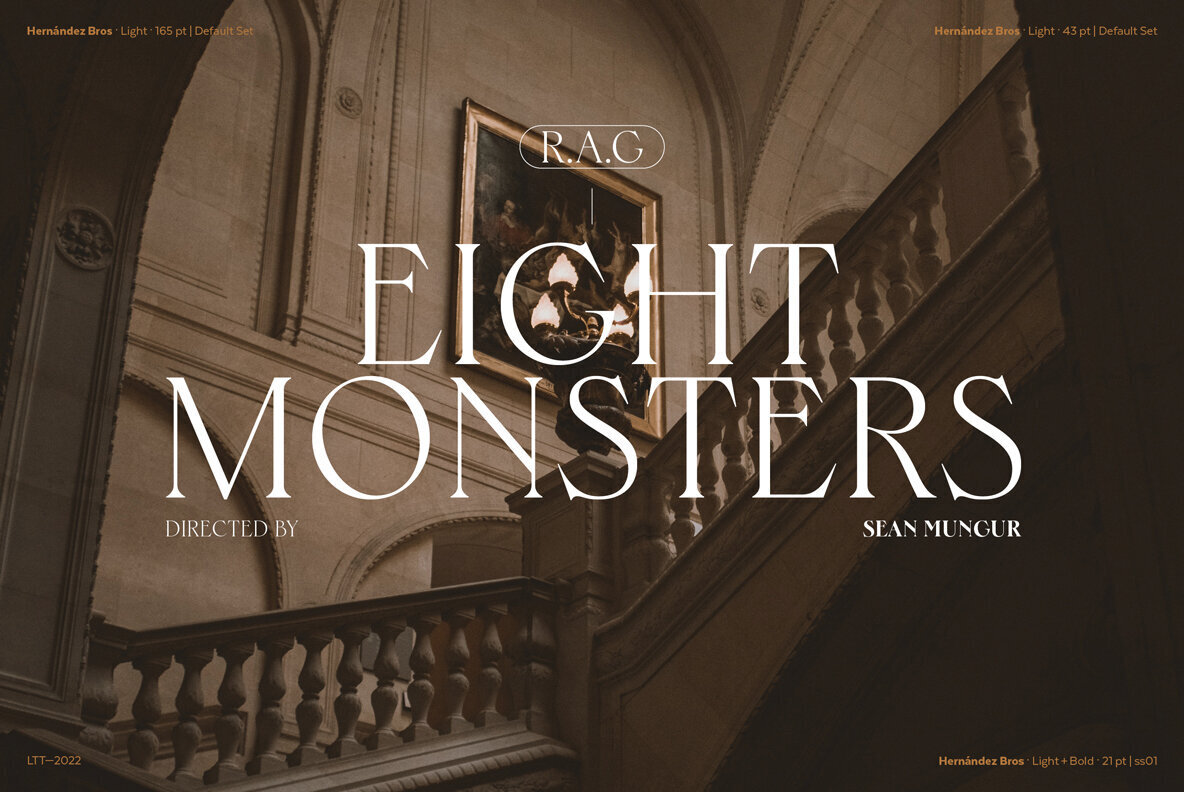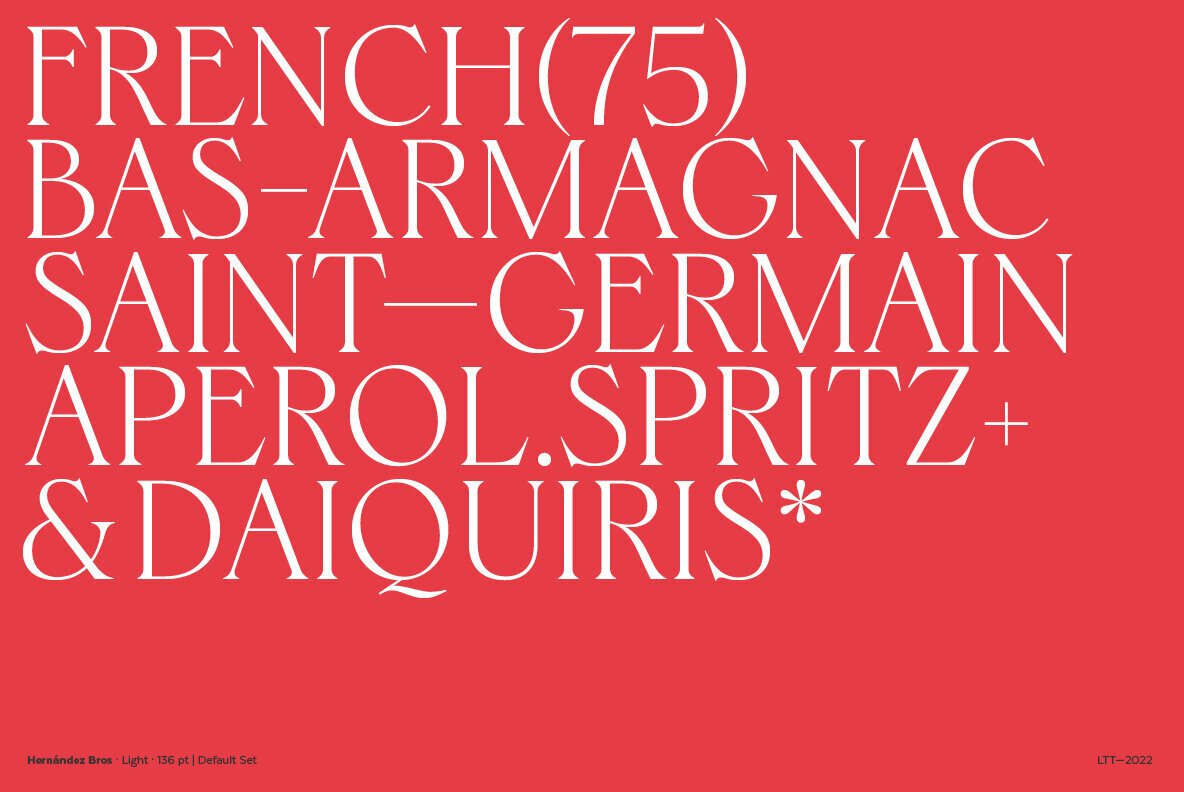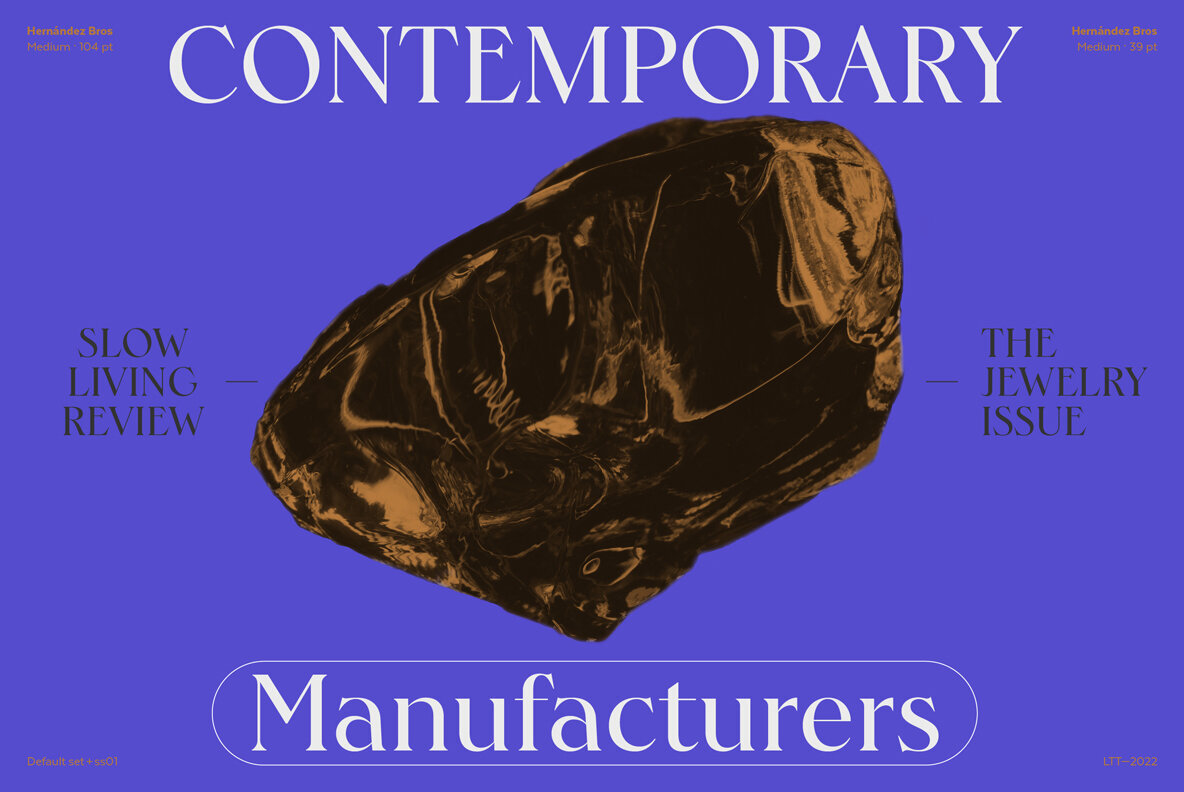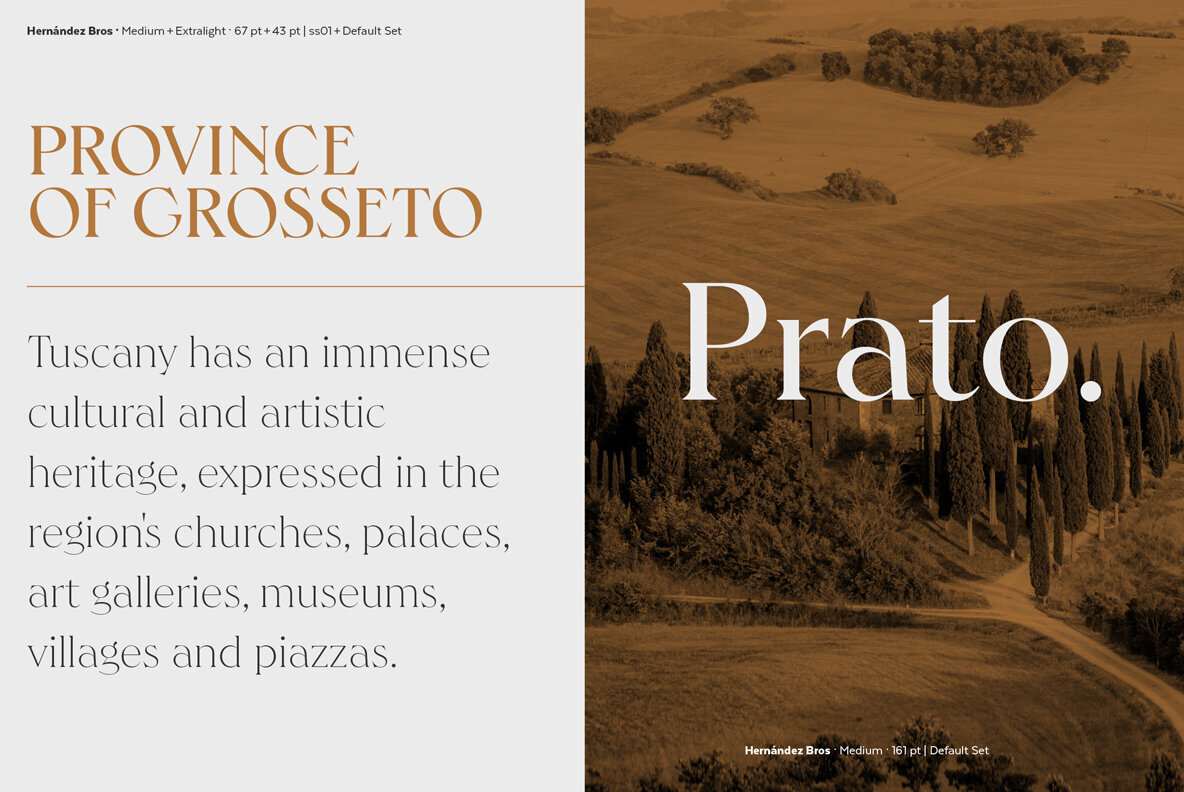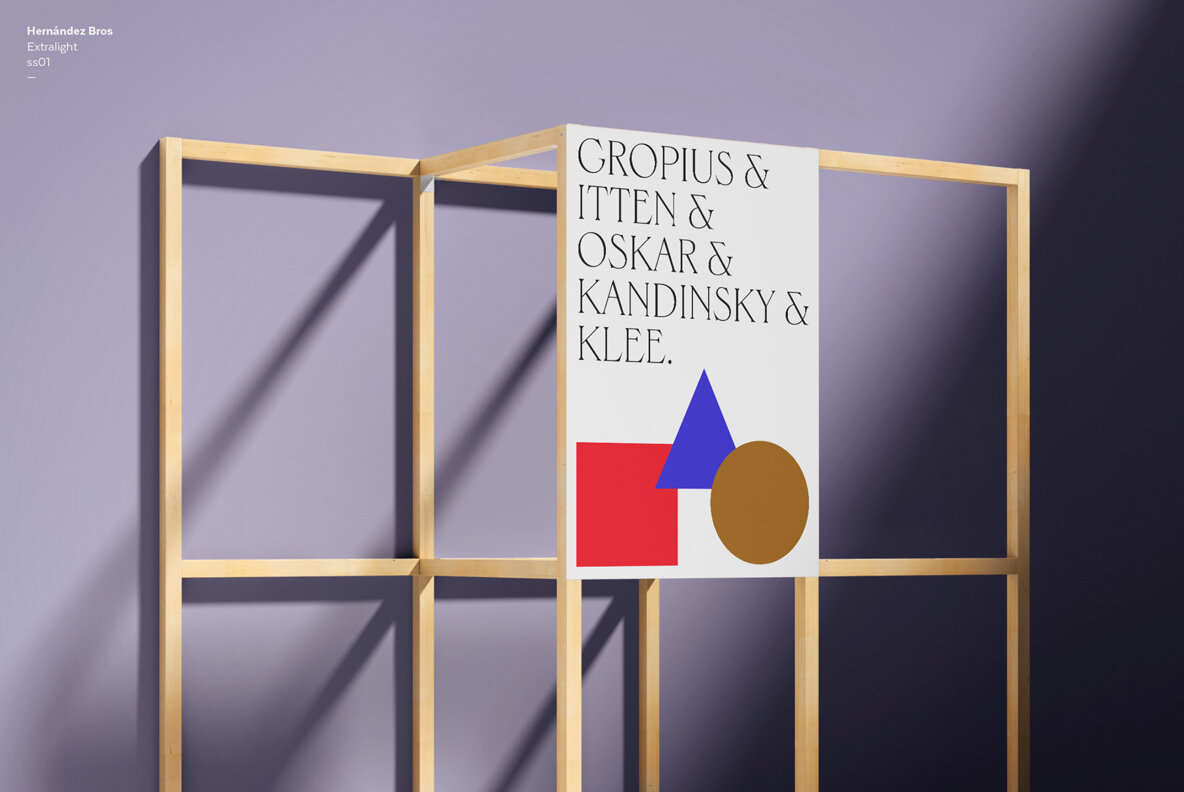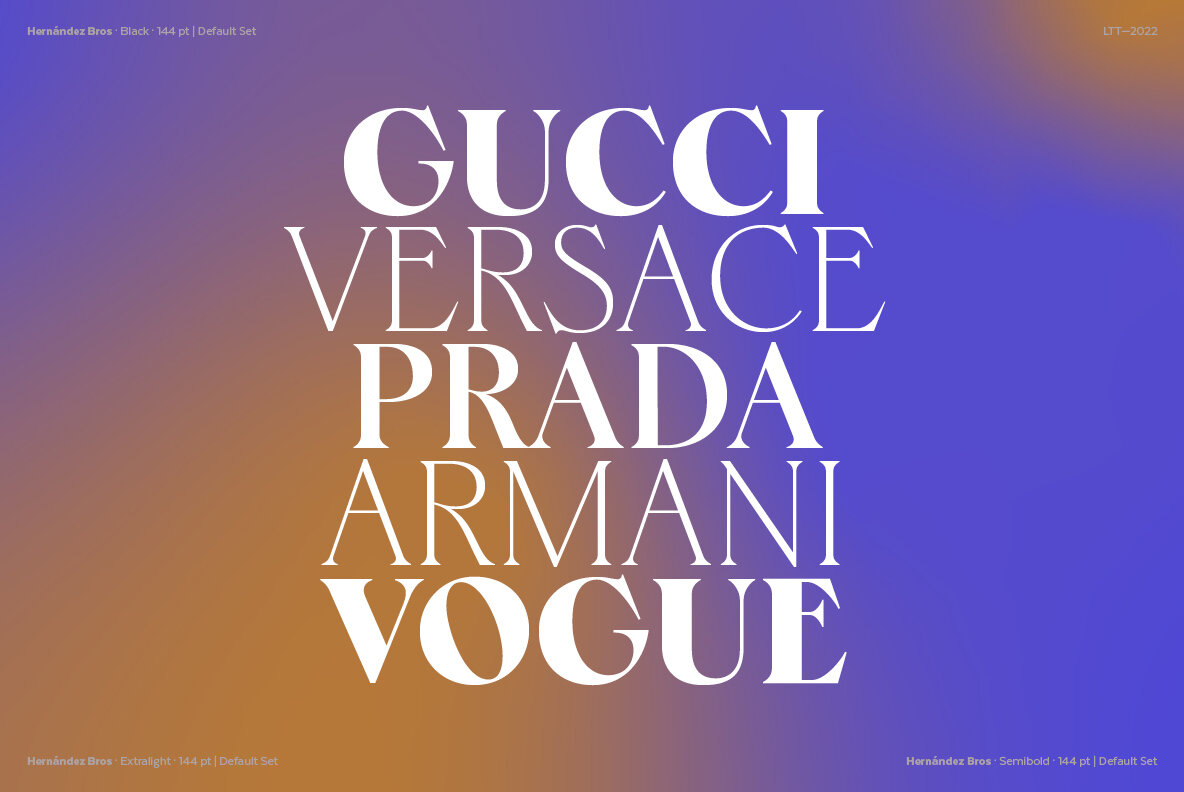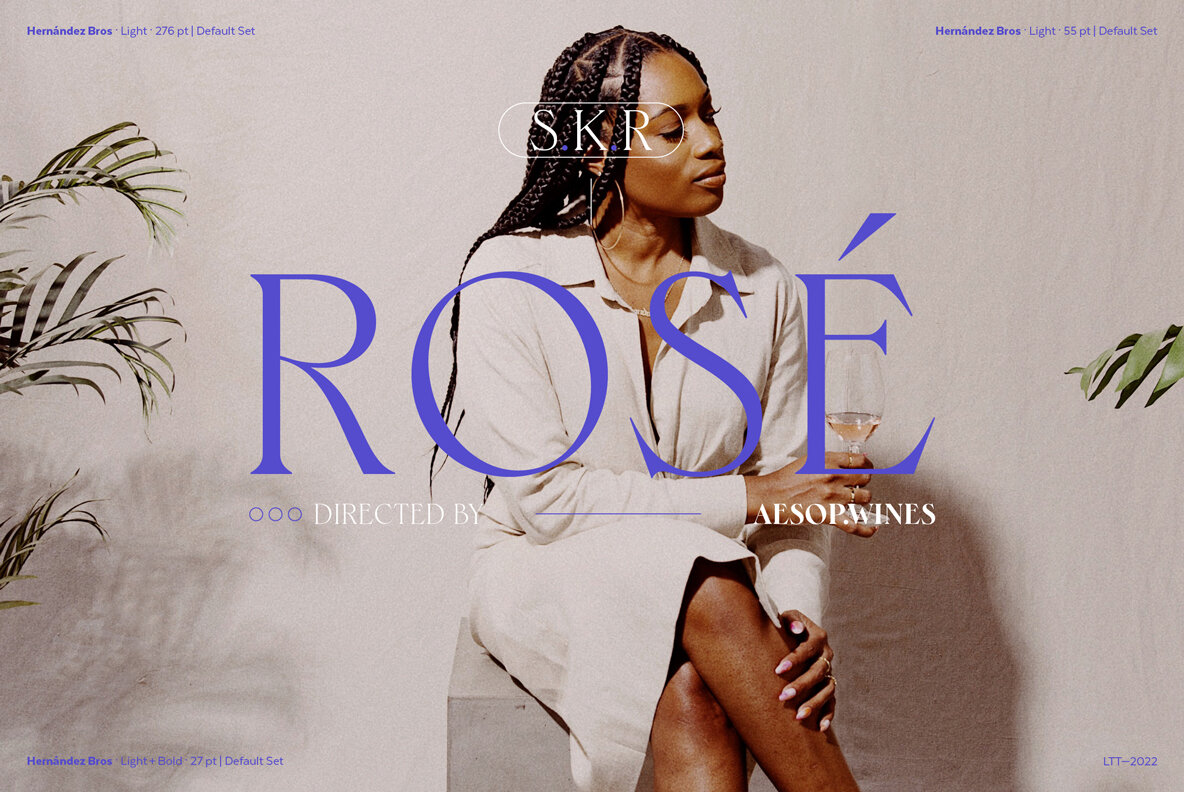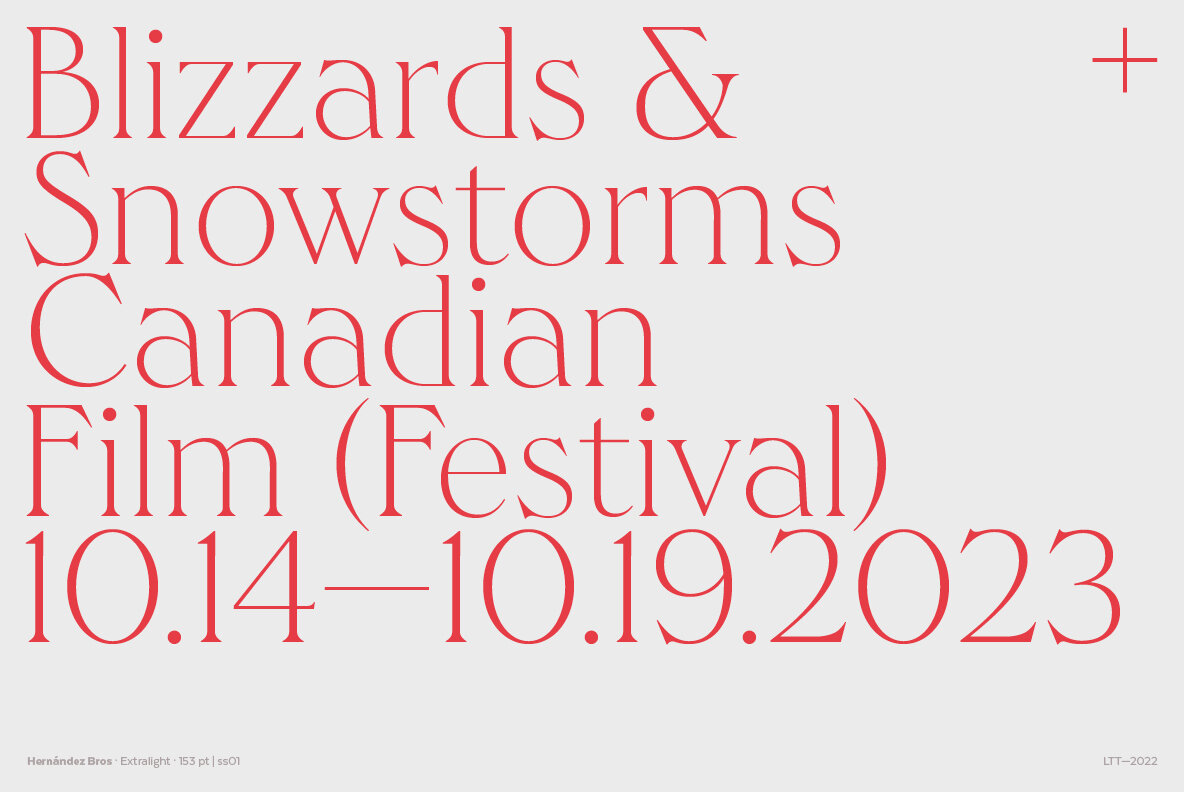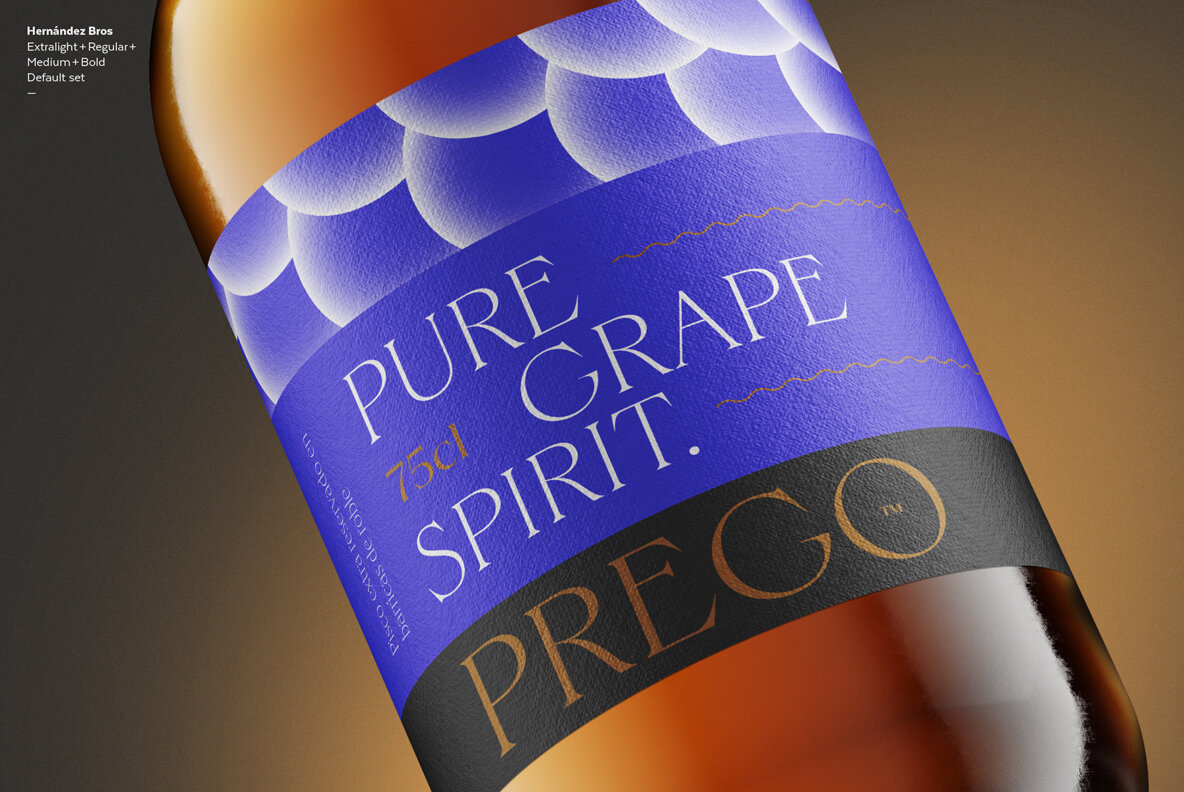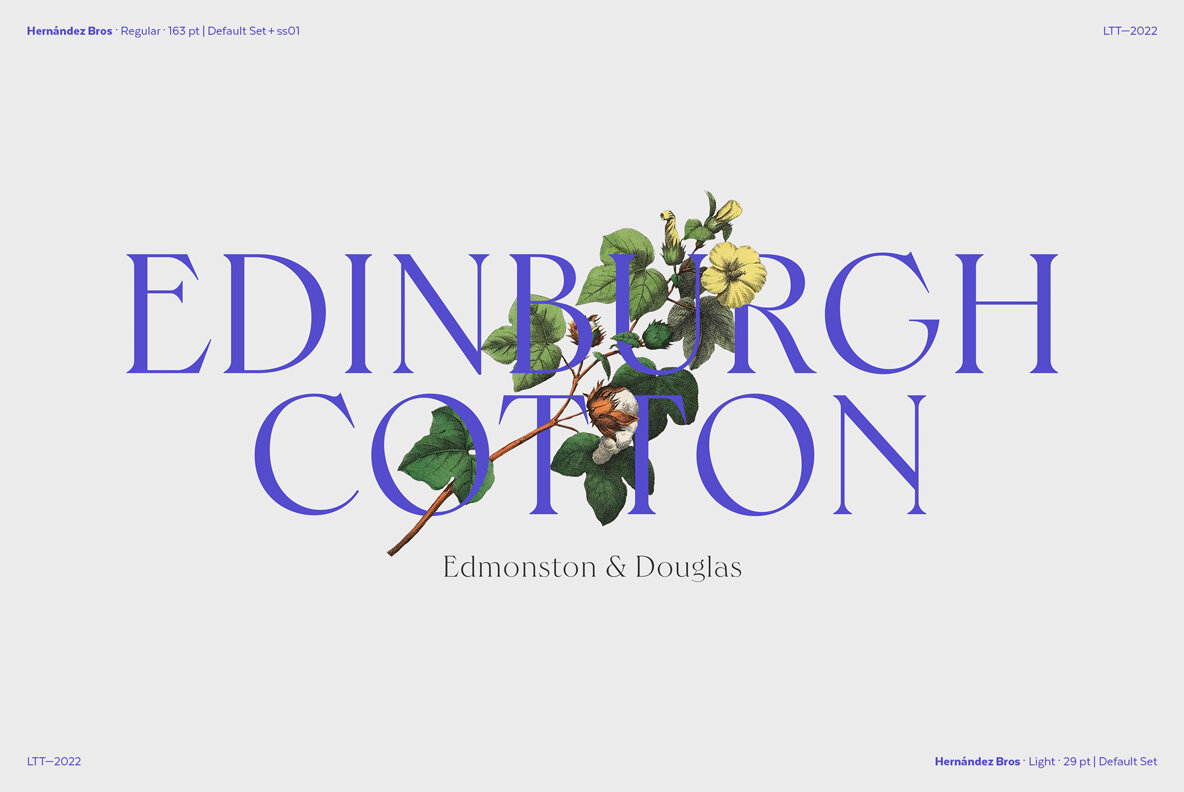
Hernandez Bros Font
Hernández Bros, is a typeface designed by Daniel and Eli Hernández. Born in the year 2021, in the midst of the Covid pandemic, from a collaborative spirit where everything called them to work together as family, in order to obtain better results in such trying times.
The Hernández siblings, started a ping pong of drawings based on Bulfinch found in the 1912 ATF catalogue. From this exercise, Hernández Bros was designed, a modern Sans Serif, with 8 weights ranging from Extralight to Black. This is an elegant font, with beautiful and harmonious contrasts, which makes it ideal for titles, brands, editorial design, magazines among others.